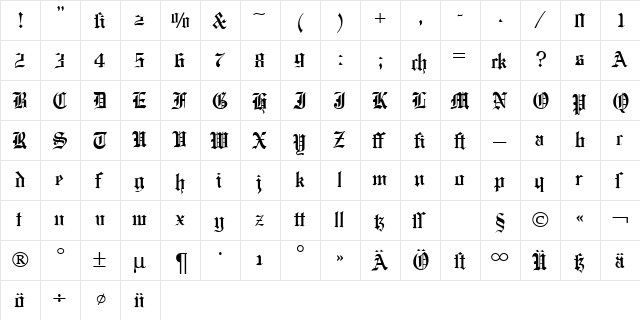
EnglishGravure Regular
Design Context for EnglishGravure Typeface
EnglishGravure is a composed and adaptable typeface that performs quietly and consistently across a wide range of design contexts.